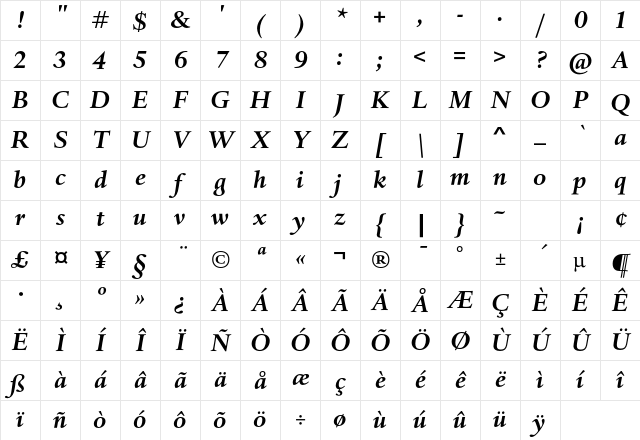
DTL Haarlemmer D Bold Italic
Style: D Bold Italic
Complete DTL Haarlemmer D Bold Italic glyph index. Displaying only characters natively supported by DTL Haarlemmer D Bold Italic font.
Design Context for DTL Haarlemmer
DTL Haarlemmer is a composed and adaptable typeface that performs quietly and consistently across a wide range of design contexts. The slanted form adds forward momentum and visual energy. Its bold stroke weight gives it real presence on the page.
Pro Tip: Use DTL Haarlemmer for emphasis, pull quotes, and subheadings where its slanted energy can add rhythm to the layout.